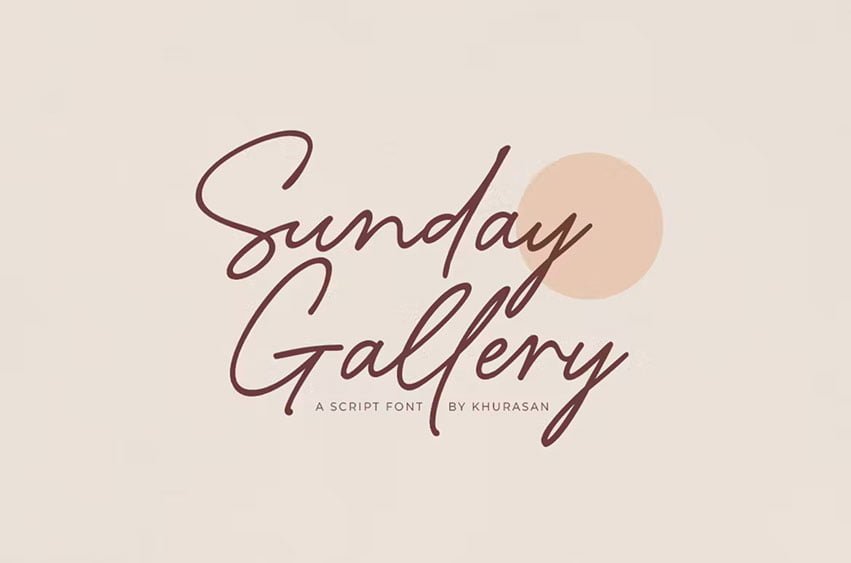
Sunday Gallery Font is a fresh script font, elegant and modern feel character set. The Sunday Gallery font as well as multi-lingual support, uppercase, lowercase, numerals, & punctuation.